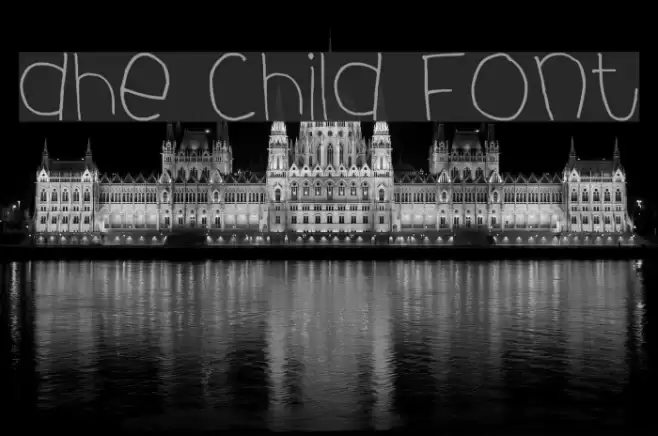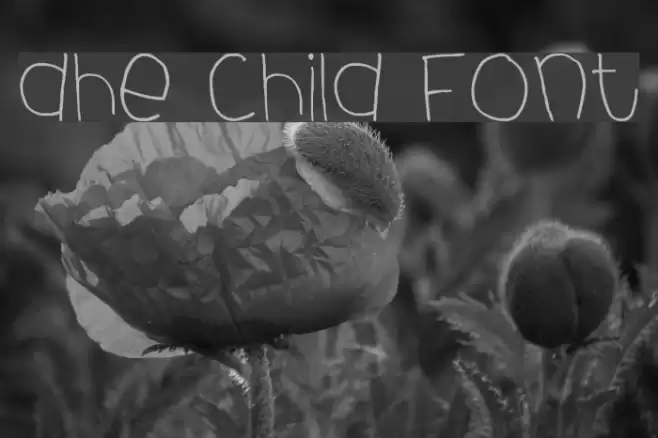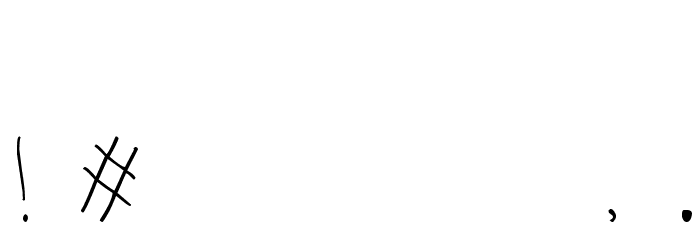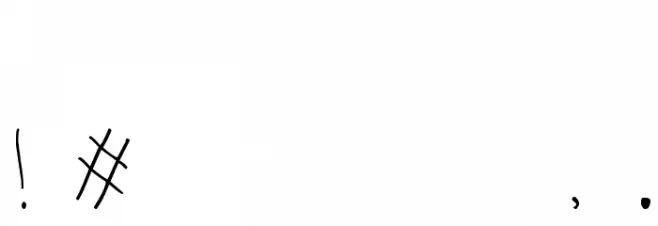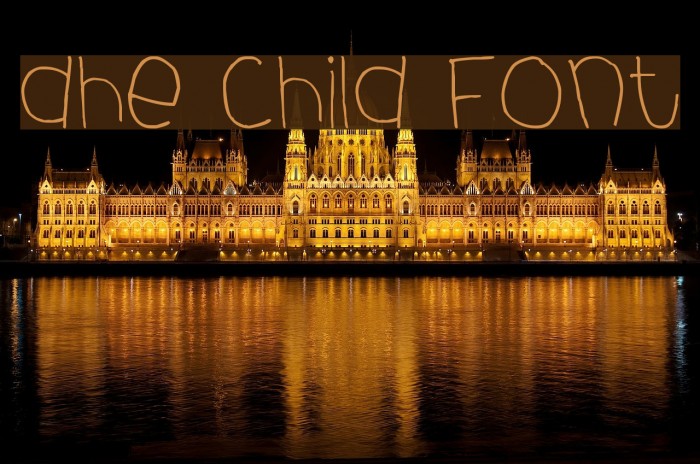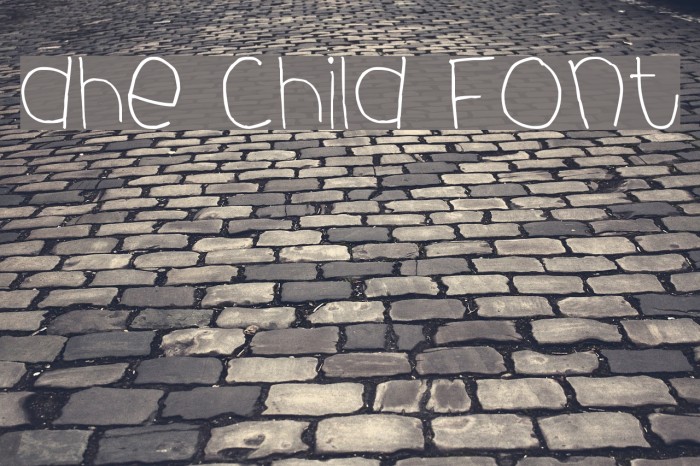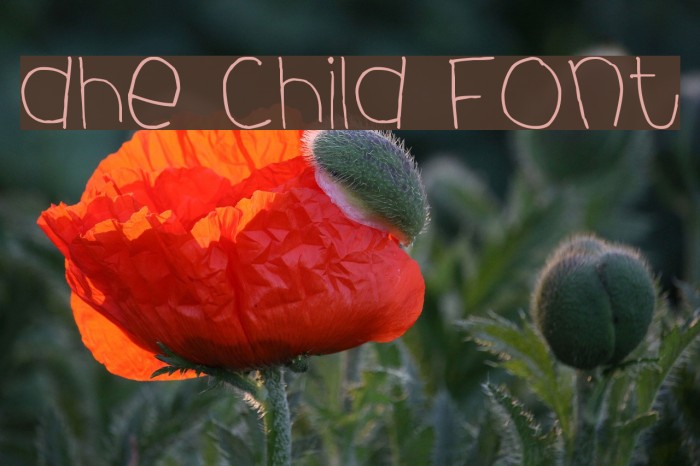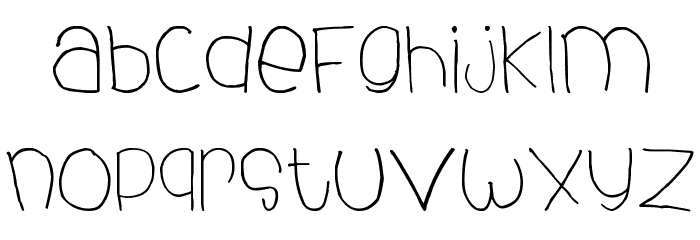
dhe child font Font
dhe child font Description
This playful and whimsical font features a hand-drawn style that evokes a sense of childlike innocence and creativity. The letters are characterized by their irregular shapes and varying line thickness, giving them a lively and dynamic appearance. The uppercase and lowercase letters maintain a consistent style, with rounded edges and a slightly tilted orientation that adds to the font's charm. The spacing between characters is generous, allowing each letter to stand out individually while maintaining a cohesive look. This font is perfect for projects that aim to capture a youthful and fun aesthetic.
A playful, hand-drawn font with irregular shapes and a whimsical style from Cartoon fonts.
- Proposed Projects: Ideal for children's books, educational materials, playful branding, and creative invitations.
- Character Spacing: Wide
- Overall Style: Playful
- Use Case: Headlines, Logos, Creative projects